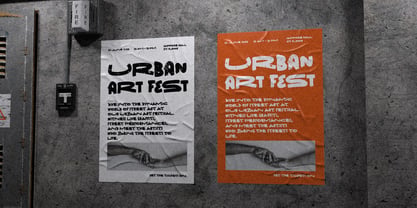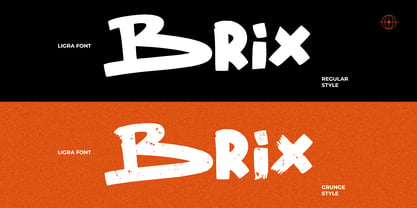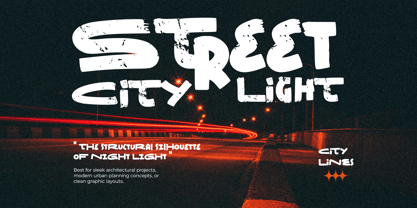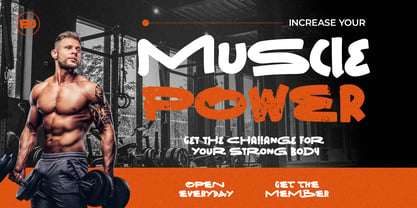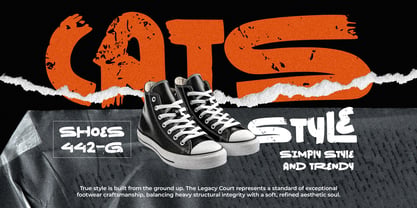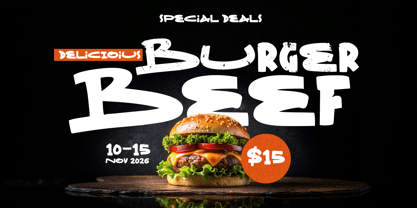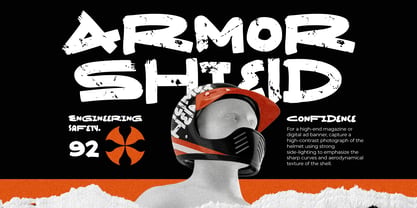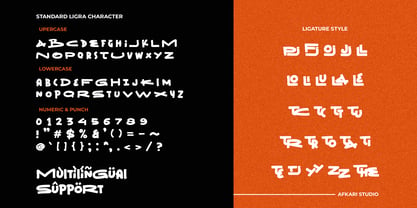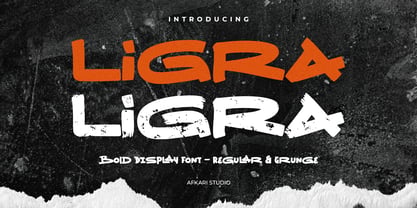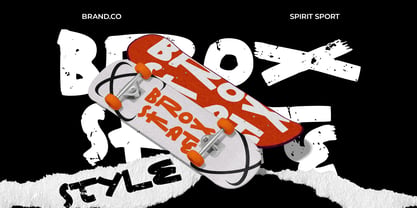
Ligra
by Afkari Studio
The Ligra Font Family was designed by Musthafa Kamal Emje and published by Afkari Studio. Ligra contains 2 styles and family package options. More about this family
Ligra is a powerful bold display typeface designed to bring strength, attitude, and visual impact to modern creative projects. Crafted for designers who want typography that instantly grabs attention, Ligra combines bold letterforms with a confident character, making it the perfect choice for branding, headlines, posters, merchandise, packaging, and digital content.
Featuring two distinctive styles — Regular and Grunge, Ligra offers exceptional flexibility for both clean modern designs and rugged vintage-inspired aesthetics. The Regular style delivers a bold and professional appearance, while the Grunge style introduces authentic distressed textures that add personality, energy, and a handcrafted feel to your work.
Designed with strong proportions and striking visual presence, Ligra excels in projects that demand maximum readability and impact. Whether you're creating logos, sports branding, streetwear graphics, album covers, advertising campaigns, gaming content, or social media promotions, Ligra provides the typographic power needed to make your message stand out.
The combination of modern display characteristics and grunge-inspired details allows Ligra to adapt seamlessly across a wide range of creative applications. Its bold structure ensures excellent performance in both large-scale headlines and eye-catching branding materials, making it an essential addition to any designer’s font collection.
Highlighted Features:
- Uppercase, Lowercase, Number, and Punctuation
- Special Alternates and Ligatures
- Strong and Impactful Letterforms
- Distressed Grunge Version Included
- Mültîlíñgúãl Sùppört for; ä ö ü Ä Ö Ü ß ¿ ¡
Designers: Musthafa Kamal Emje
Foundry: Afkari Studio